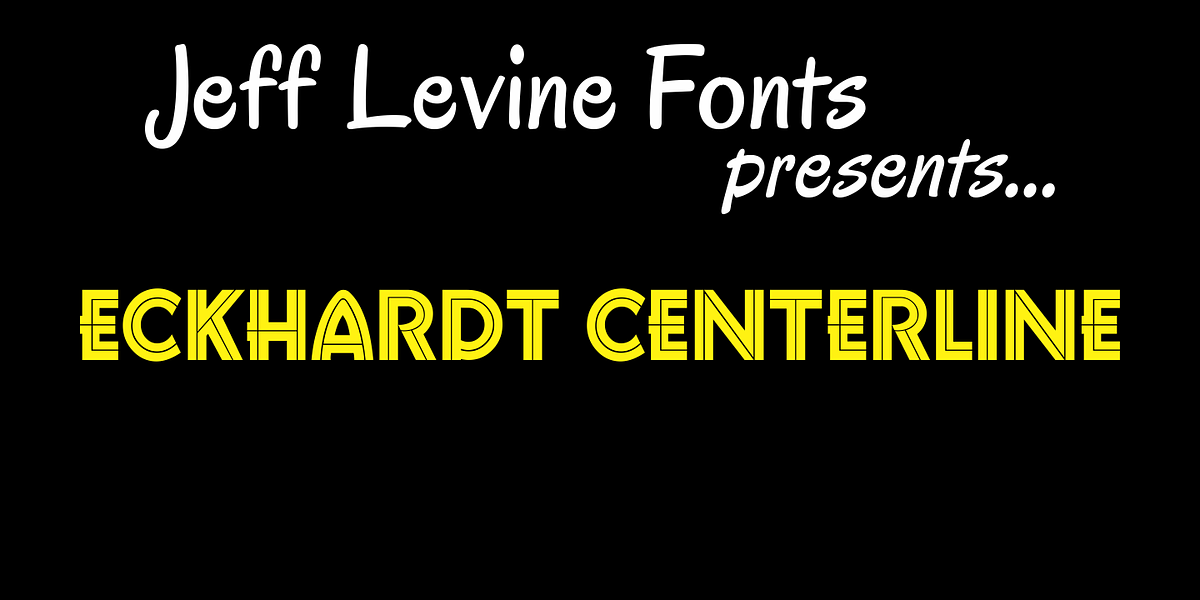
Eckhardt Centerline JNL
This typeface is one of a number of sign painter-oriented fonts named in honor of Jeff Levine’s good friend Albert Eckhardt, Jr. (who ran Allied Signs in Miami Florida from 1959 until his passing).